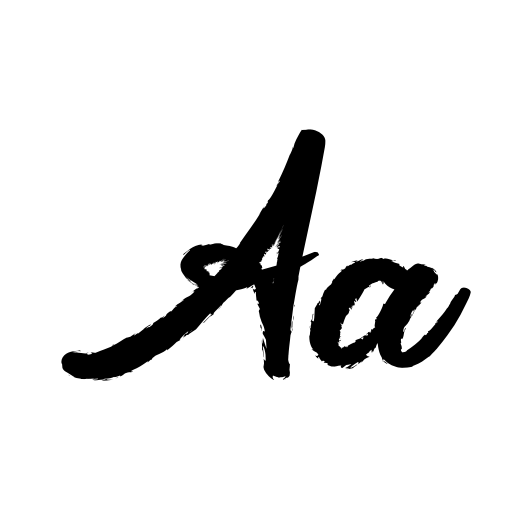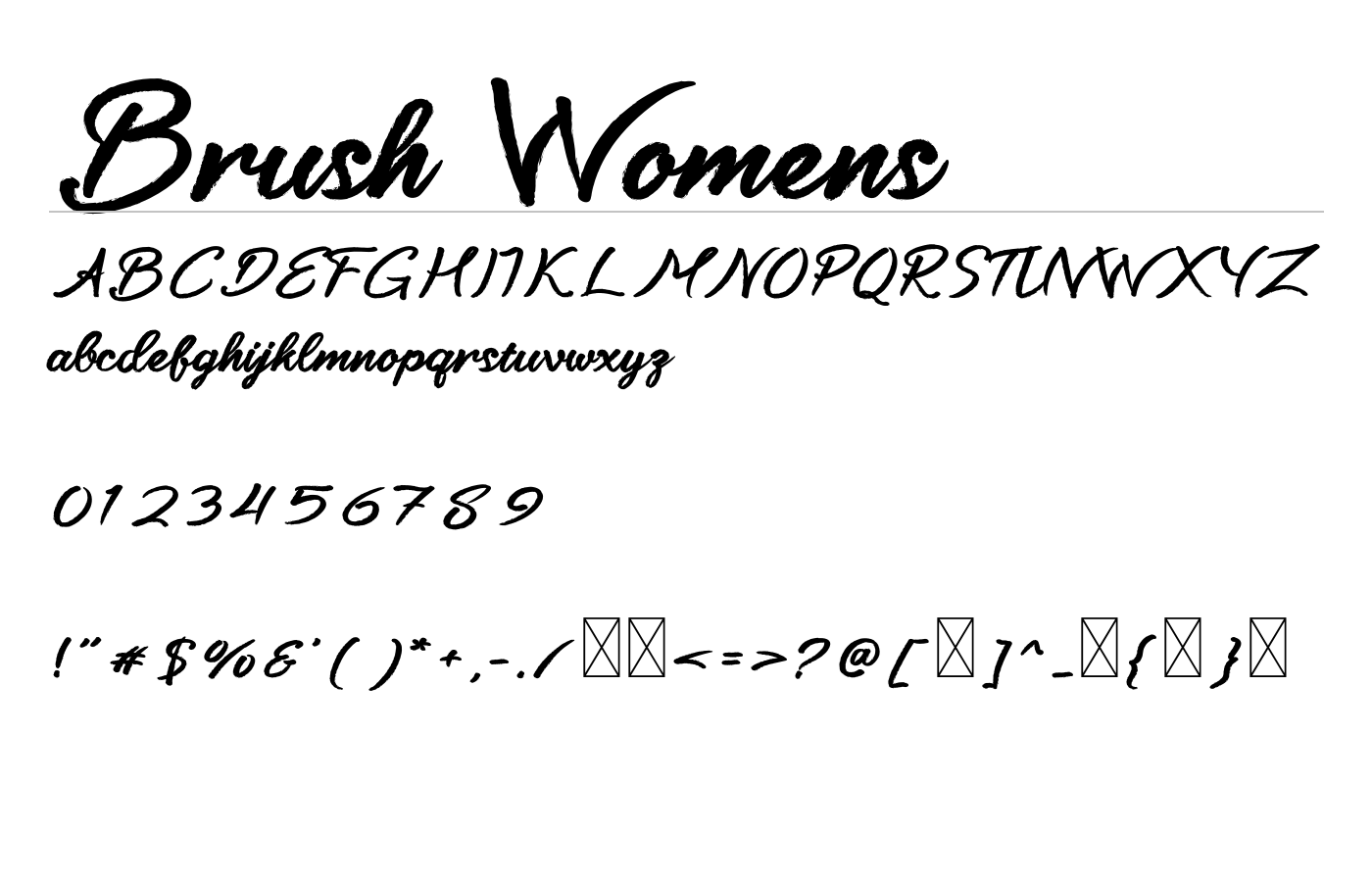
Brush Womens is a lively and elegant script font with a hand-painted brush style, featuring a medium weight and smooth, flowing strokes that give it a feminine and artistic feel. Its slightly condensed letterforms and dynamic brush texture make it perfect for branding, invitations, and creative projects that want to evoke warmth and personal touch. This font works wonderfully in headlines and logos where a stylish, handcrafted look is desired.
Brush Womens Font
About Brush Womens Font